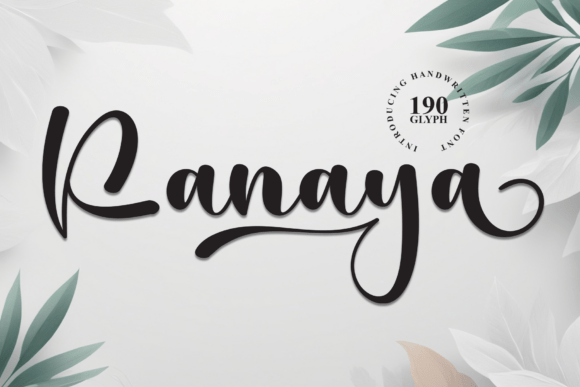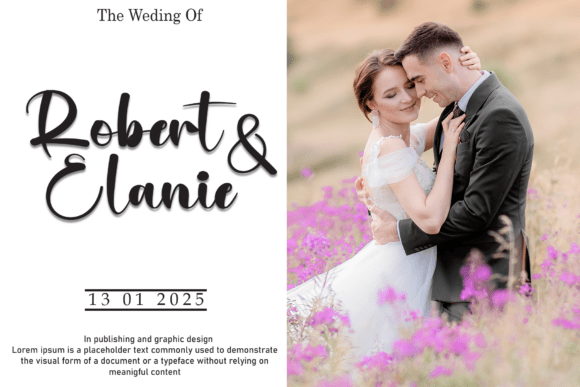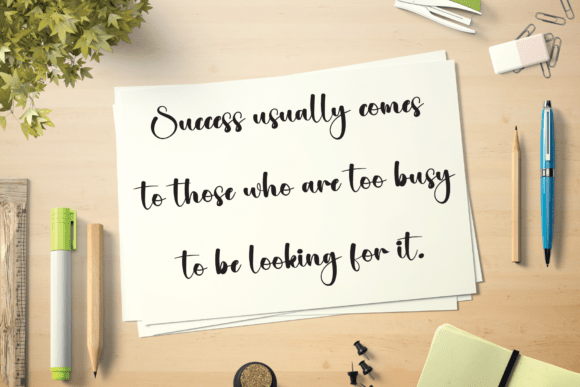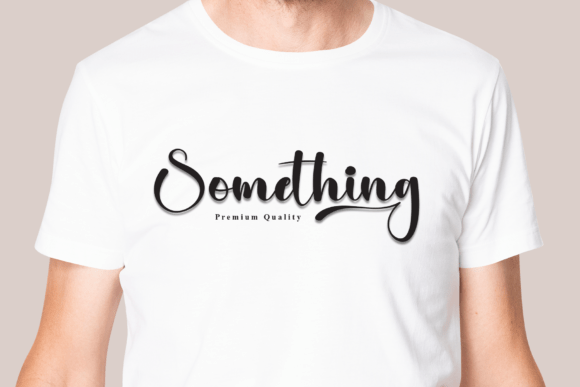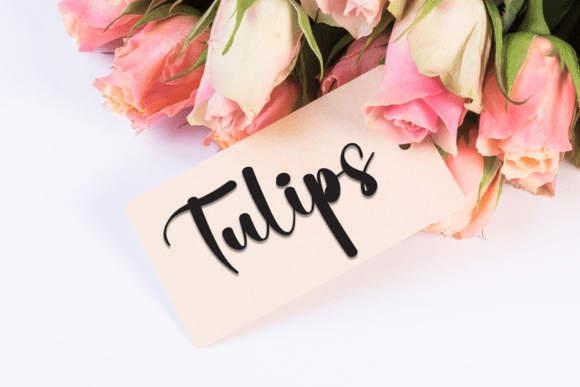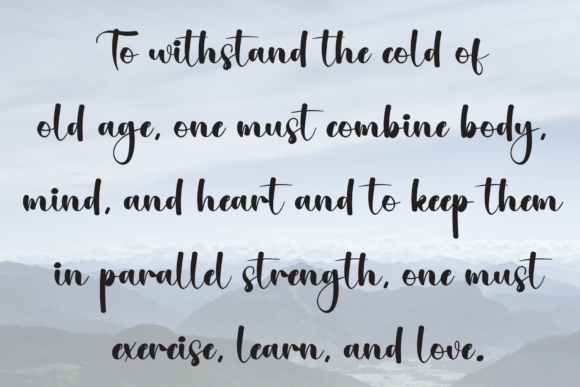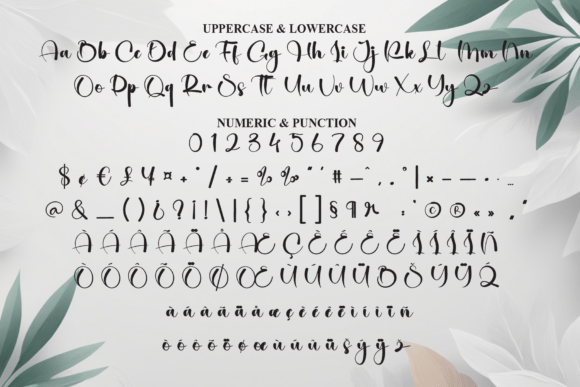
Discover the Artistry of the Kanaya Font
Imagine you’re brainstorming ideas for a wedding invitation, and the perfect design is just out of reach. The words, the colors, the style – everything seems to be falling into place, but one crucial element is missing. That’s when you stumble upon the Kanaya Font, and suddenly, your design takes on a life of its own.
The Kanaya Font is a stunning handwritten script font that exudes elegance and sophistication. With its smooth curves and modern calligraphy style, it’s the perfect addition to any design project. Whether you’re creating wedding invitations, branding, or social media graphics, this font is sure to make your designs stand out. With 190 glyphs at your disposal, the possibilities are endless, and your creativity will soar.
Kanaya Font Key Features
- Font Family: Kanaya is a unique, highly customized font family designed to mimic the look and feel of handwritten Japanese calligraphy.
- Character Set: Kanaya includes a wide range of characters, including Latin, Cyrillic, Greek, and Japanese scripts, making it suitable for multilingual designs.
- Size and Resolution: Kanaya is designed to be used at various sizes and resolutions, from small text to large headings, and is optimized for print and digital use.
- Unique Characteristics: Kanaya’s distinctive, flowing strokes and subtle variations in letterform make it an ideal choice for designs that require a touch of elegance and sophistication.
- Font Size: Kanaya is available in multiple font sizes, ranging from 8pt to 144pt, allowing designers to achieve a wide range of visual effects.
Kanaya Font Review
I’ve had the chance to work with the Kanaya font, and I must say it’s a unique addition to any design project. Here’s my honest review.
- The Kanaya font’s script-like style adds a touch of elegance to any text. It’s perfect for creating a luxurious or vintage feel.
- The font is highly customizable, allowing you to adjust the weights, widths, and ligatures to suit your design needs.
- The Kanaya font is also highly legible, even at small font sizes, making it a great choice for body text.
- The Kanaya font can be quite bold and overwhelming if used excessively. It’s best to use it in moderation to avoid visual fatigue.
- The font’s script-like style can make it difficult to read for those with dyslexia or other reading difficulties.
- The font’s customization options can be overwhelming, especially for beginners. It may take some time to get used to adjusting the various settings.
The Kanaya font is a great addition to any design project that requires a touch of elegance and sophistication. While it has some limitations, its customization options and legibility make it a valuable tool in any designer’s toolkit. With some restraint and creativity, the Kanaya font can help take your designs to the next level.
Kanaya Font Practical Application Guide
The Kanaya font is ideal for:
2. Baby shower invitations and decorations.
3. Fine art and illustration projects.
Tips for Getting the Most Out of the Kanaya Font
To get the most out of the Kanaya font, try:
1. Pairing it with a bold or sans-serif font for contrast.
2. Adjusting the font size and spacing for optimal readability.
3. Experimenting with different colors and styles to create unique designs.
Alternatives to Kanaya Font for Designers
Carme Font
Carme Font is a elegant and modern script font, perfect for creating a luxurious and sophisticated look in branding, invitations, and wedding designs. It is ideal for designers who want to add a touch of elegance to their designs. Carme Font is similar to Kanaya Font in terms of its elegant and refined look, but it has a more fluid and cursive feel to it.
Carolyna Pro is a modern calligraphy font that is perfect for creating a stylish and sophisticated look in designs such as branding, packaging, and editorial designs. It is ideal for designers who want to add a touch of sophistication to their designs. Carolyna Pro is similar to Kanaya Font in terms of its elegant and refined look, but it has a more geometric and modern feel to it.